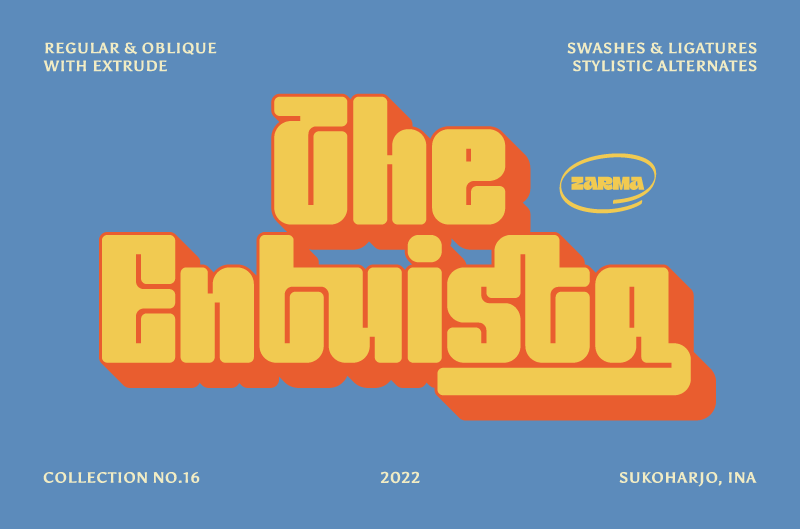
Preview and download Entuista Font. Created by Azzam Ridhamalik in Fancy Groovy styles with Free for personal use license.
Introducing Entuista, a squary and chunky typeface with a touch of unique retro style. It has 2 style font, regular and oblique with extra Extruded Font version on each style. So you won't need extra effort for create an extrude effect for this fonts, that means it will save your precious time to make amazing stand out designs. ____________________________________________________ NOTE: This font is for PERSONAL USE ONLY, NO COMMERCIAL USE ALLOWED!!! If you want to purchase Full Version and Commercial Use here is the link : https://bit.ly/3zkwXQ5 For Corporate use you have to purchase Corporate license Any donation are very appreciated. Paypal account for donation : https://paypal.me/azzamridhamalik If you need a custom license please contact us at azzamridhamalik@gmail.com Please visit our store for more amazing fonts : https://creativemarket.com/zarmatype Follow our instagram for update : @zarmatype Thank you |